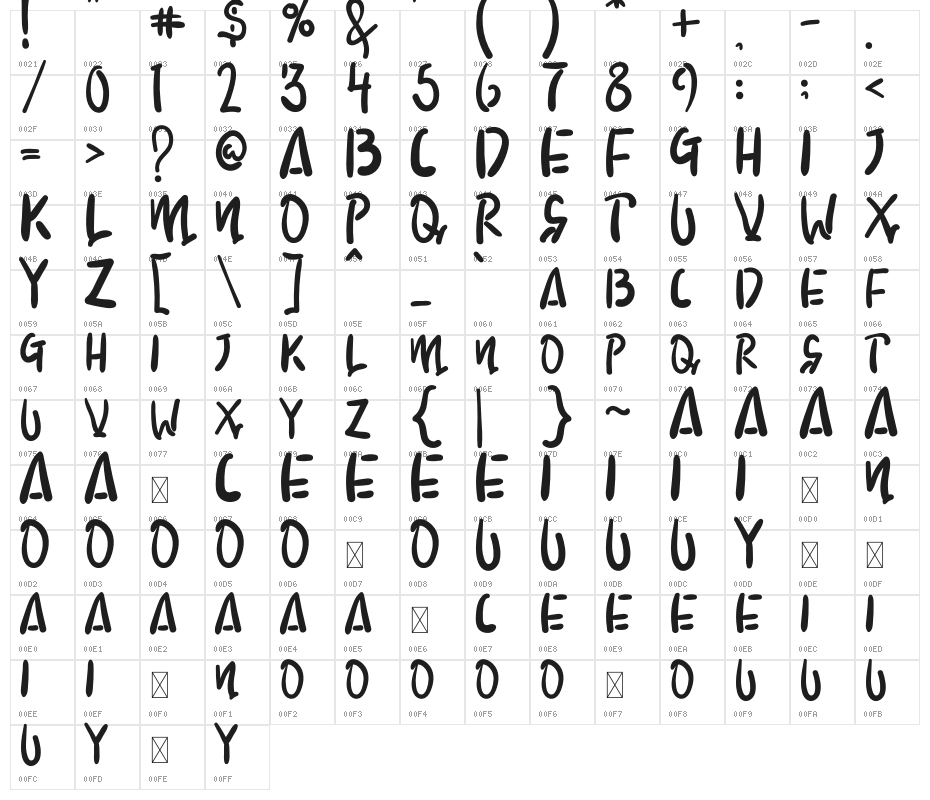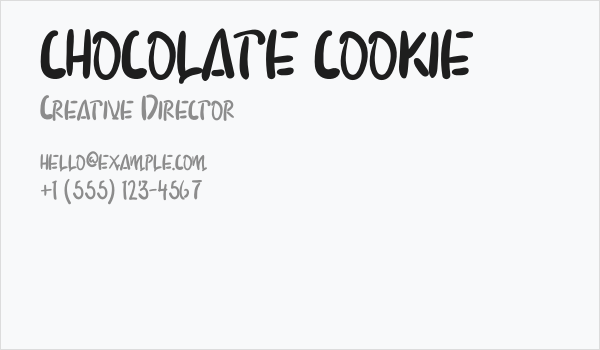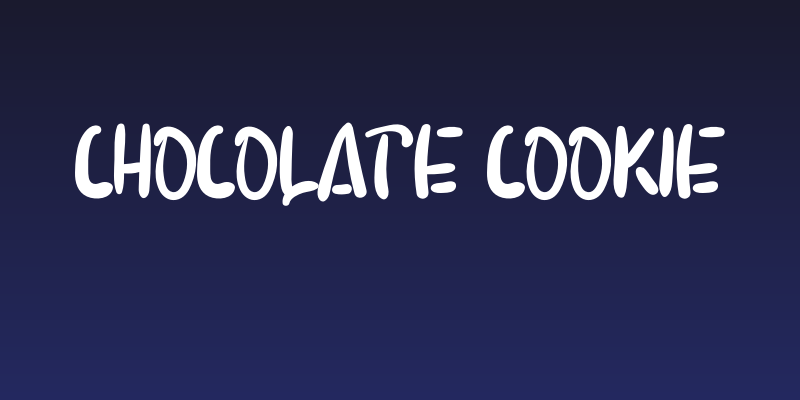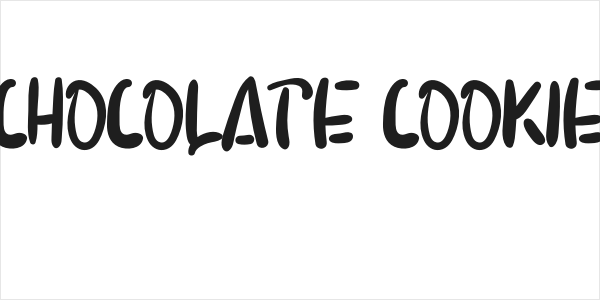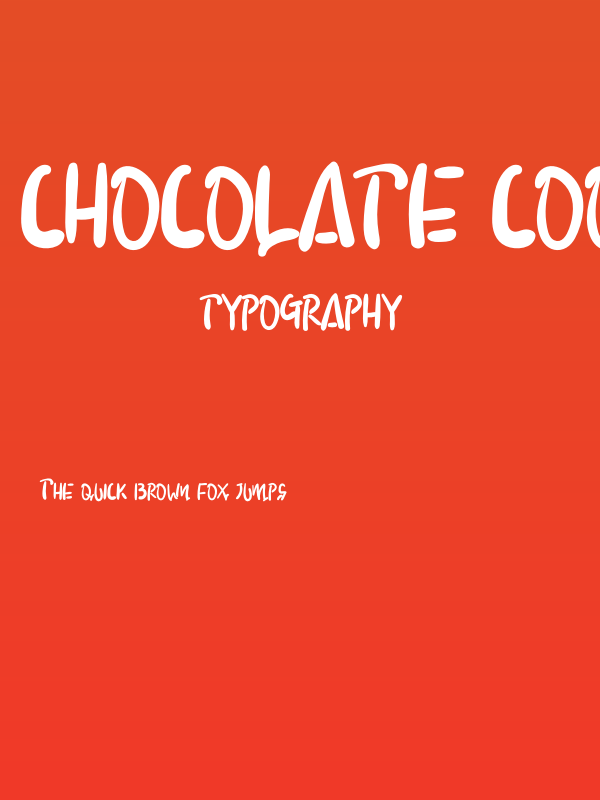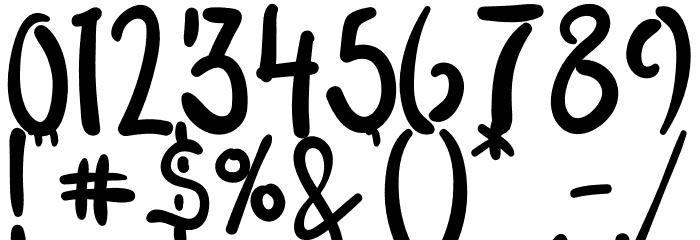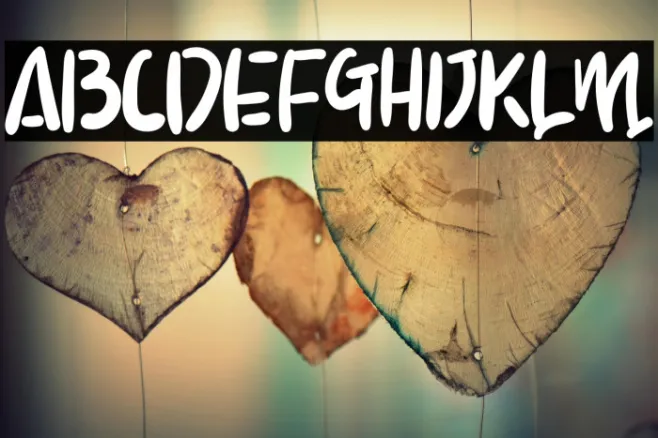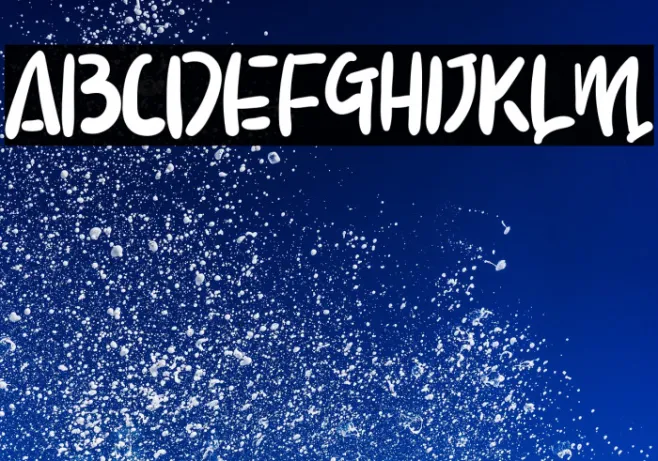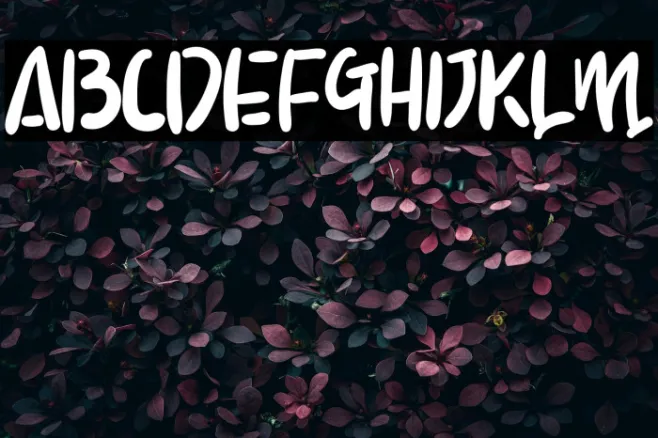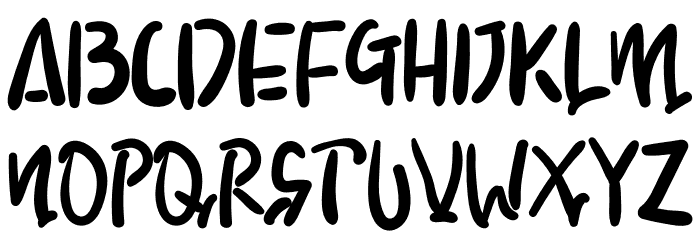
CHOCOLATE COOKIE Font
CHOCOLATE COOKIE Description
This font features a playful and bold handwritten style, characterized by its thick strokes and slightly irregular letterforms. The uppercase and lowercase letters maintain a consistent flow, giving it a casual yet energetic appearance. The numbers and special characters follow the same lively design, making it suitable for projects that require a fun and informal touch. The font's overall look is reminiscent of hand-painted signage, adding a personal and approachable feel to any text.
| Proposed Projects | Ideal for children's books, playful branding, casual invitations, and creative posters. |